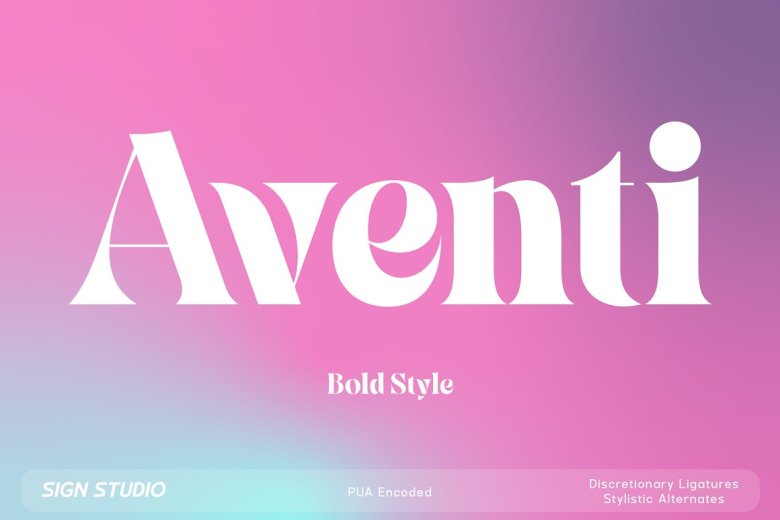
Aventi Font
Aventiis is a really nice boldserif font. stylistic alternates set ( a, e, g,y) and discretionary ligatures. it will compliment any design, such as cards, branding materials, business cards, quotes labels, badge, logos and many more. PUA encoded ( all characters is access by turning on PUA unicode or simple copy paste).
Aventi Bold Serif Font